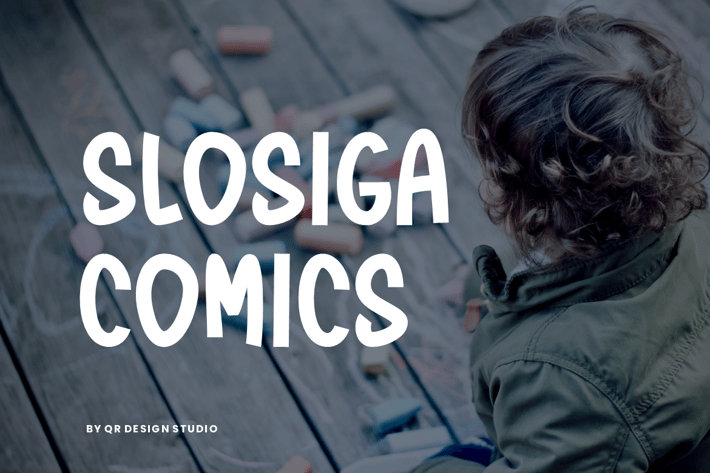
Slosiga Comics - Kids & Playful Font
Slosiga Comics Font is a hand drawn and authentic display font.
The font is suitable for any branding project like kids, poster, logo, sport, and many more.